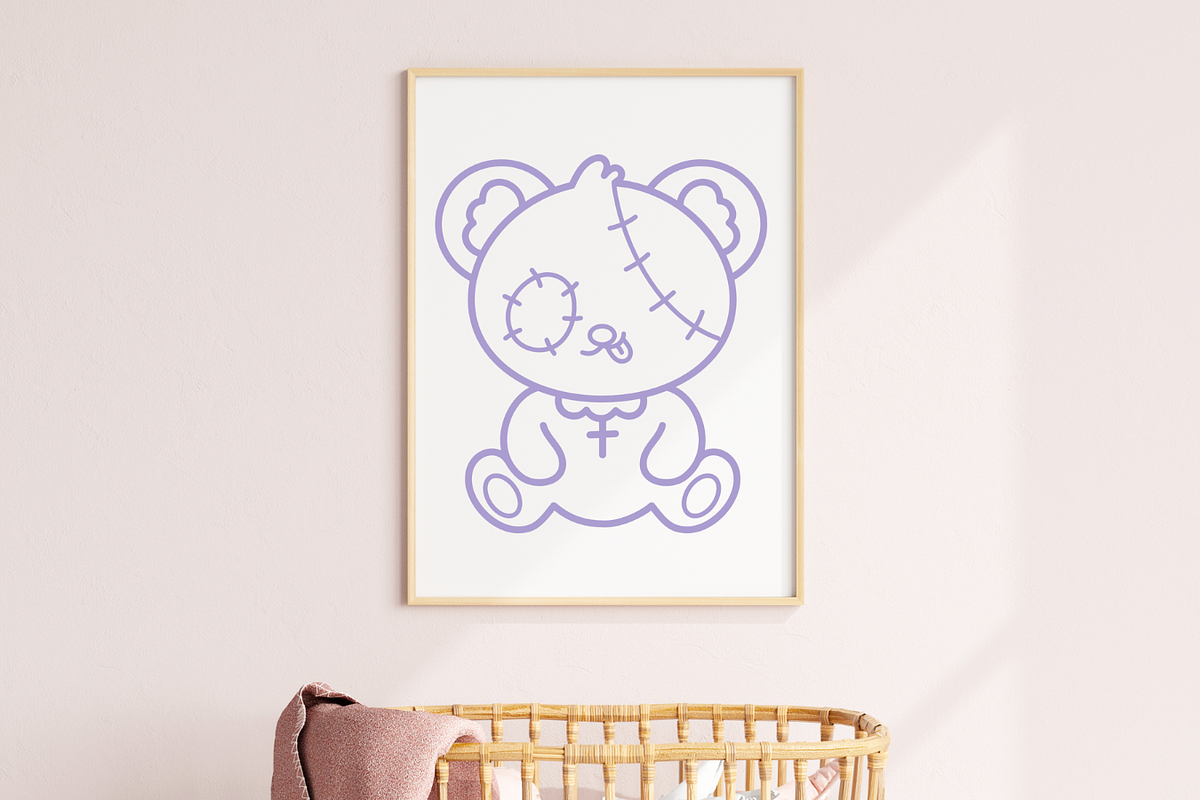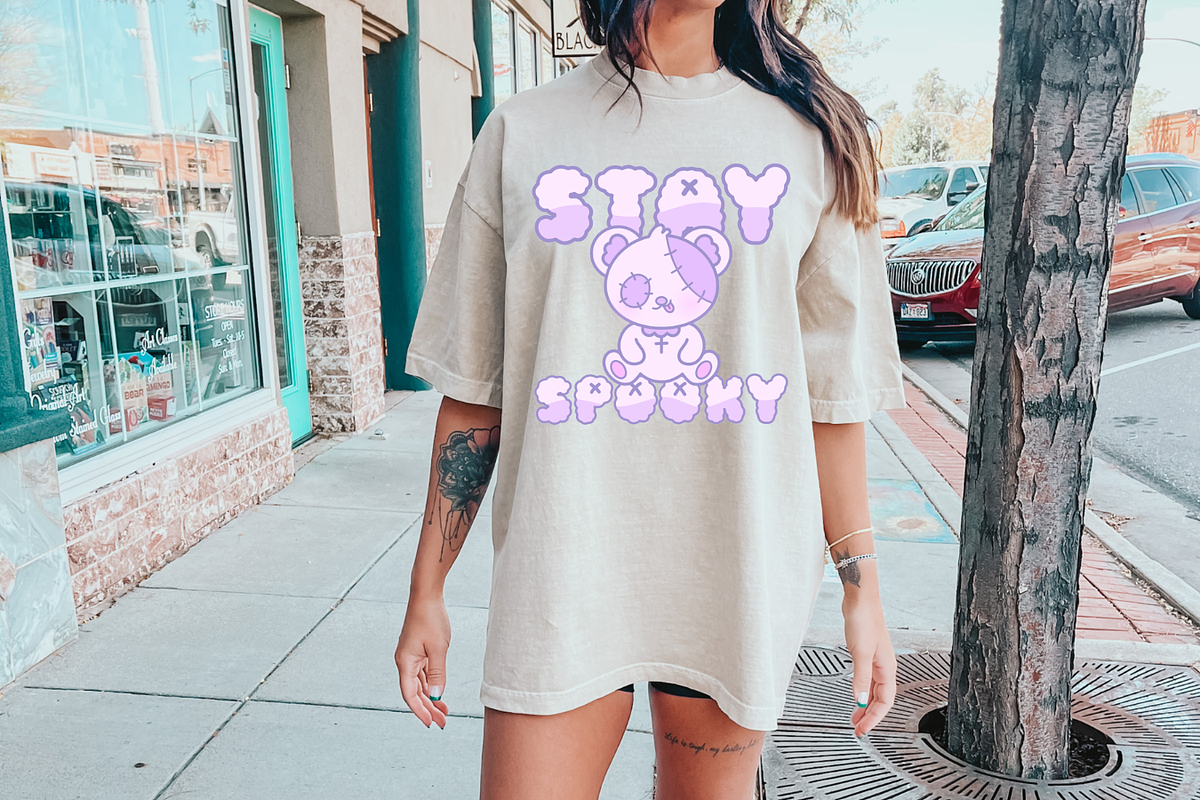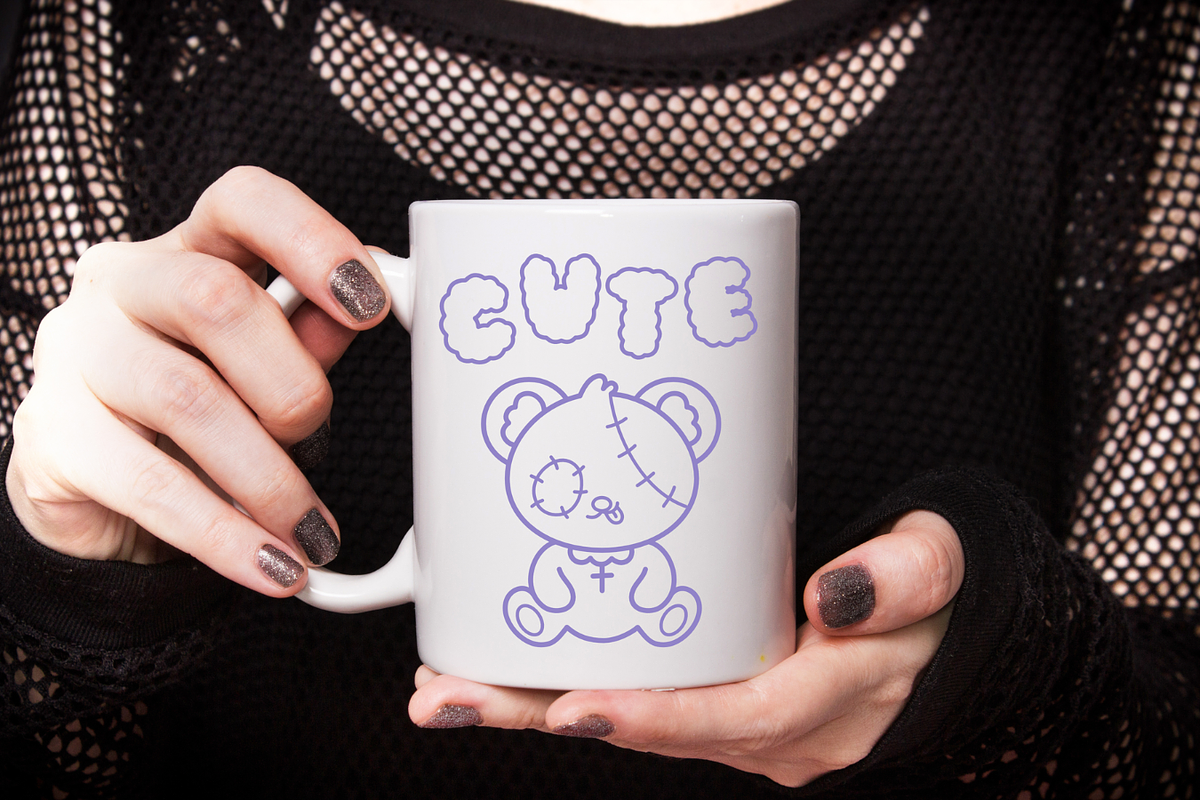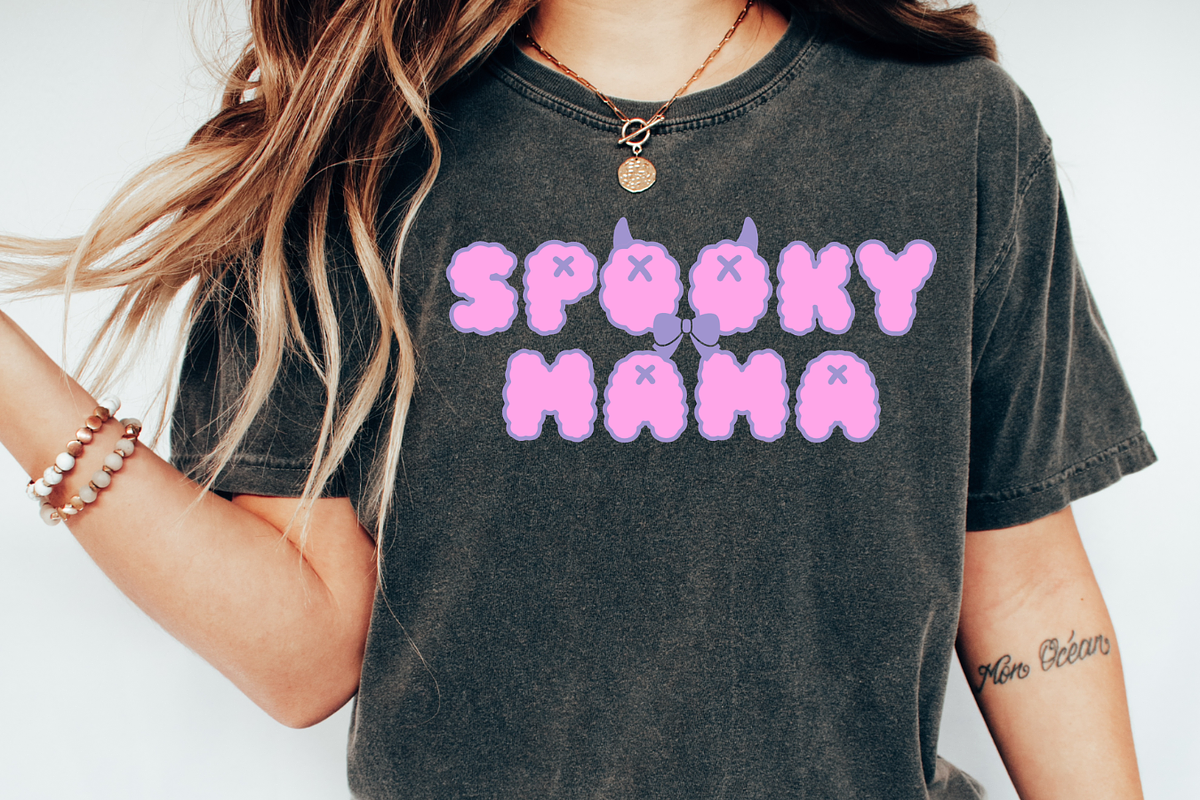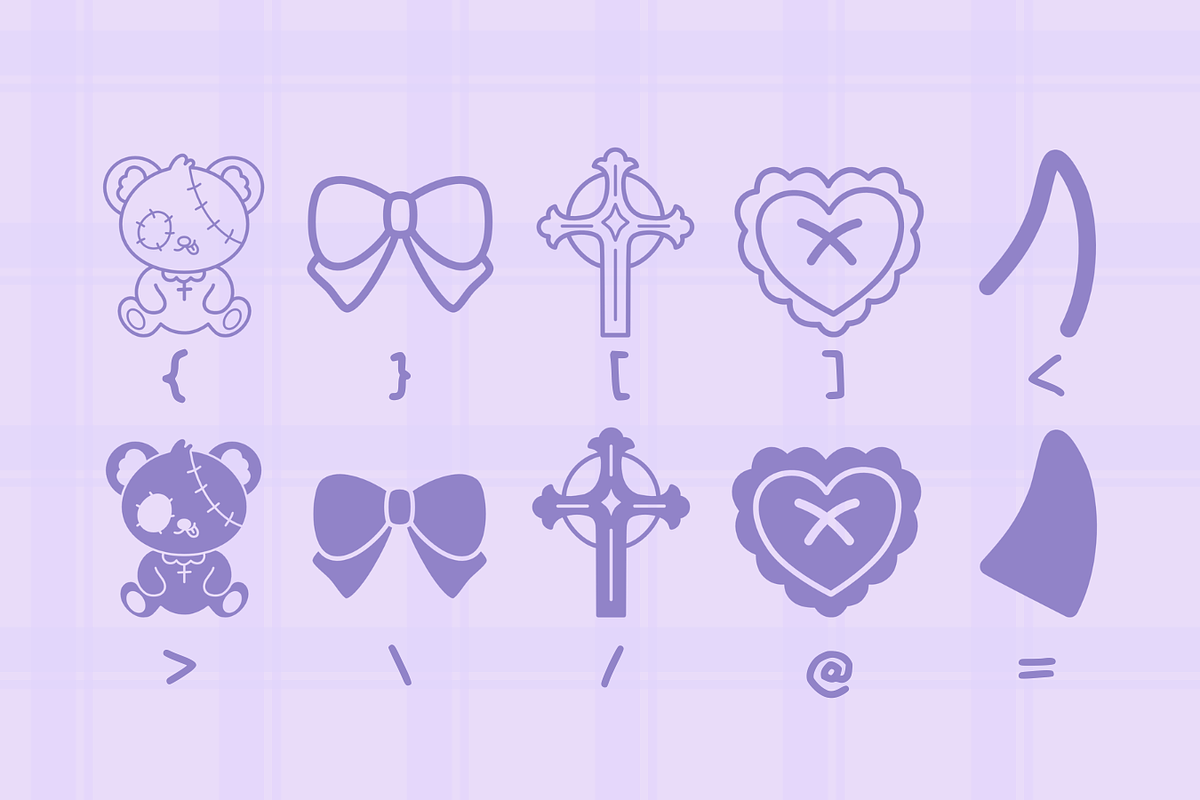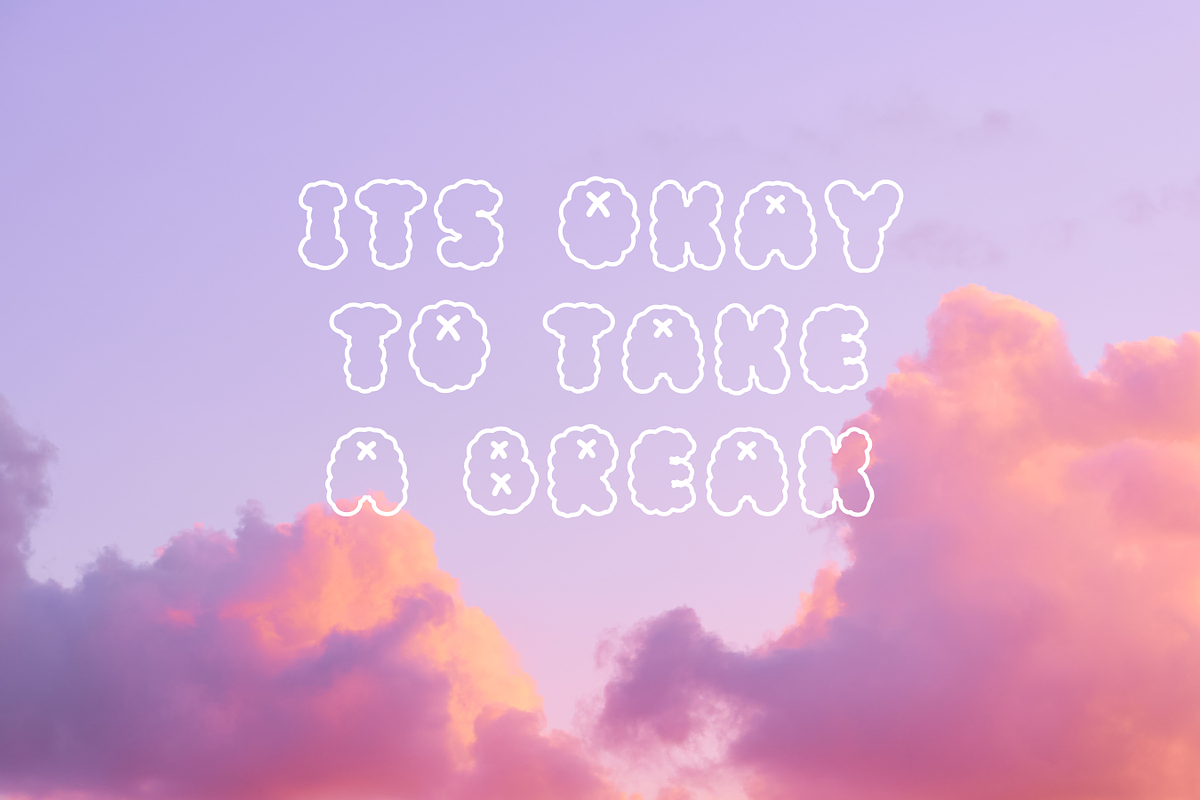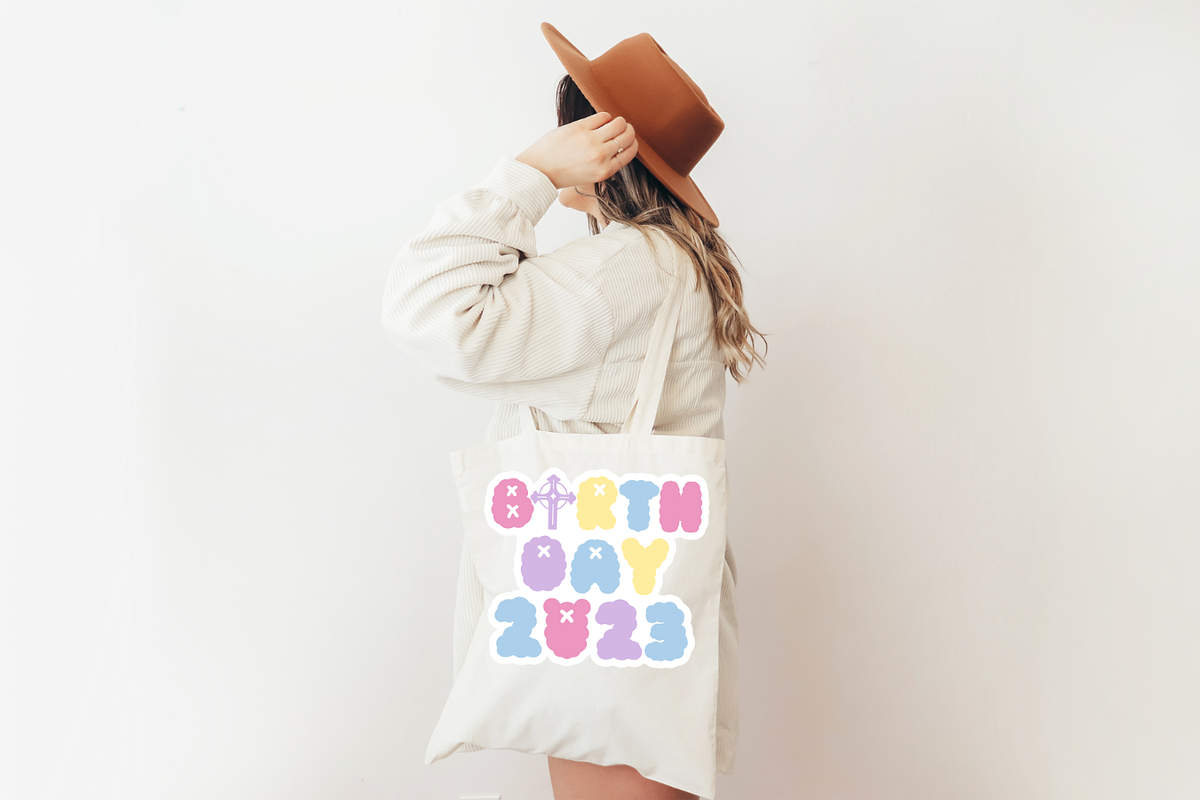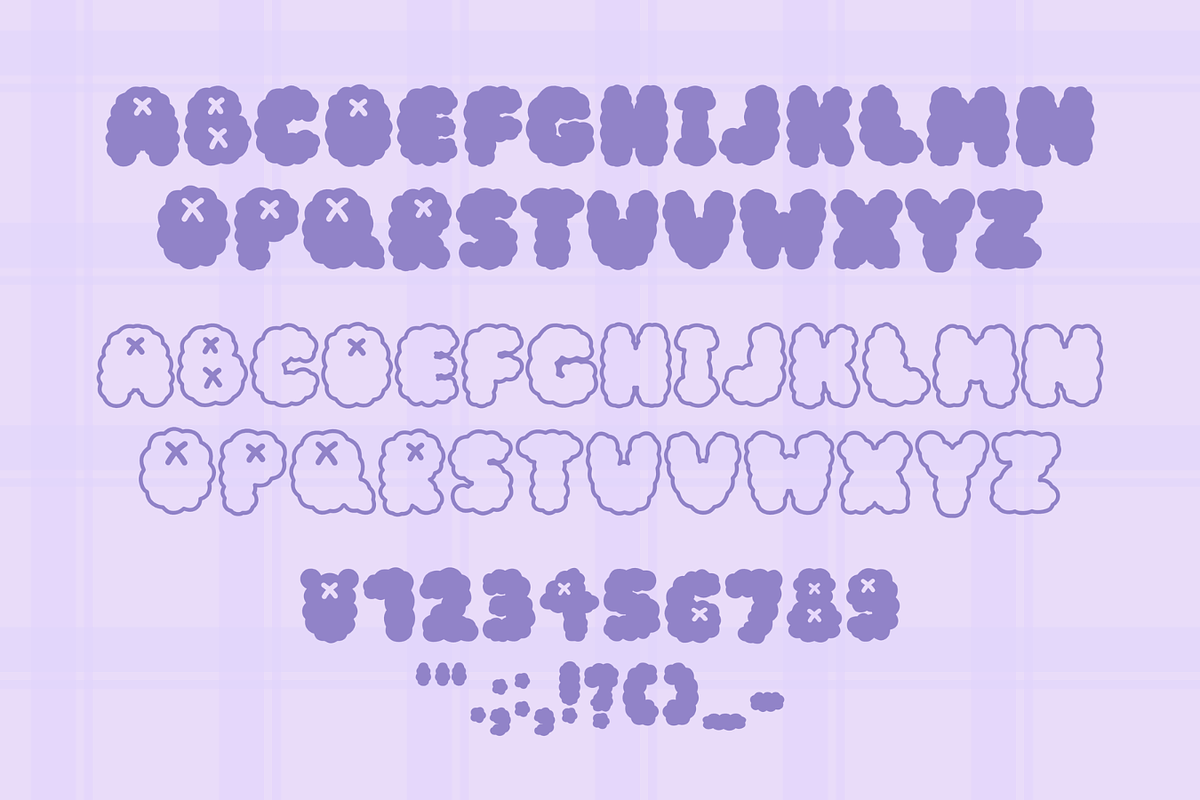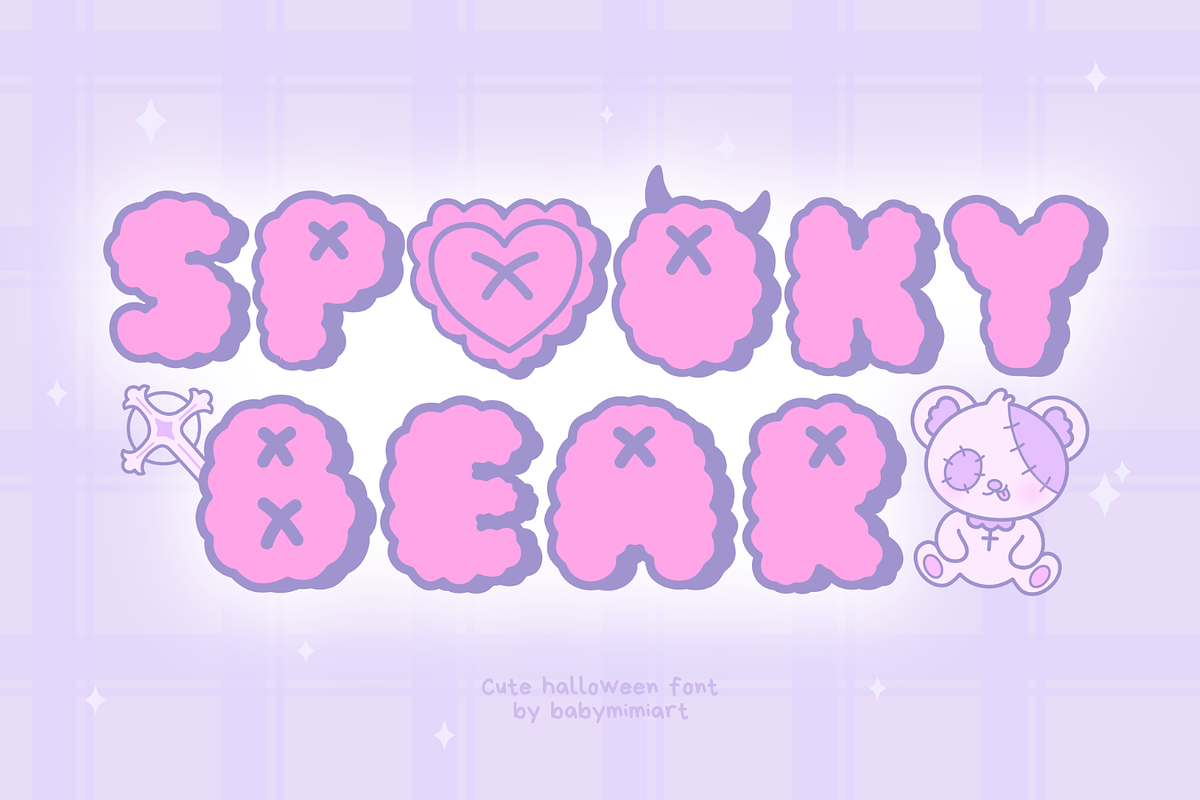
Spooky Bear Font
Spooky Bear is a font that combines Halloween spookiness with a cute and fluffy vibe. It adds a sweet and playful touch that stands out and grabs attention in an enchanting way. Whether you’re prepping party invites, creating seasonal posters, or engaging in much more.